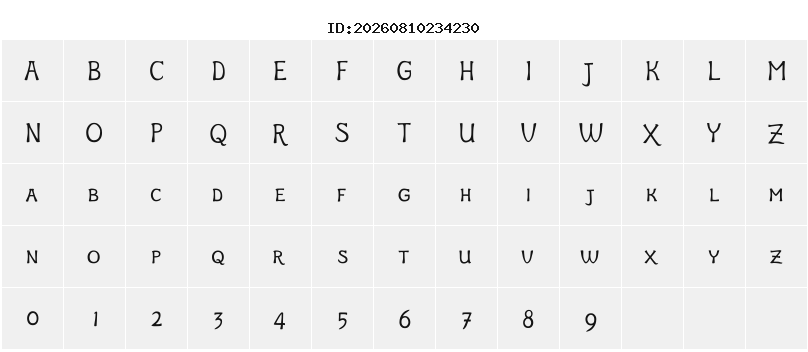
• Font Name: Rustic SageSmall Caps
• Full Font Name: Rustic SageSmall Caps
About Rustic SageSmall Caps.ttf
Rustic SageSmall Caps.ttf is a modern, elegant sans-serif font designed for ultimate readability and visual harmony. Perfect for branding, headlines, web design, and print materials.